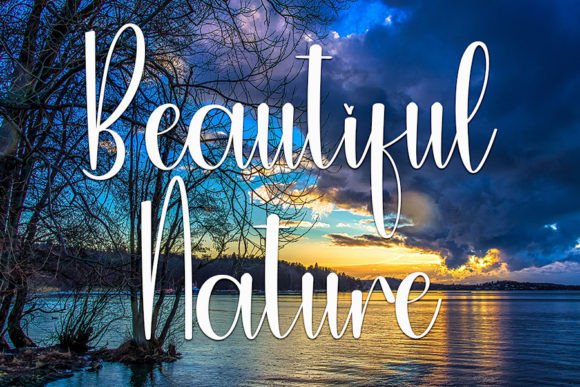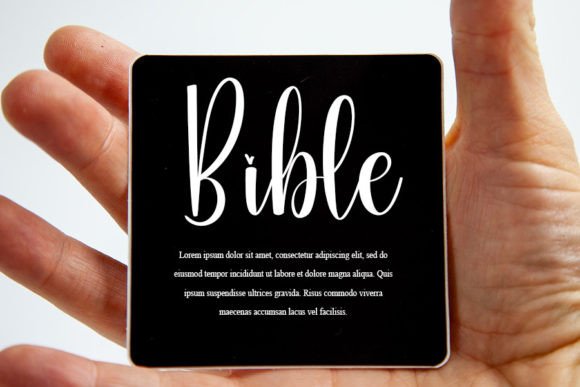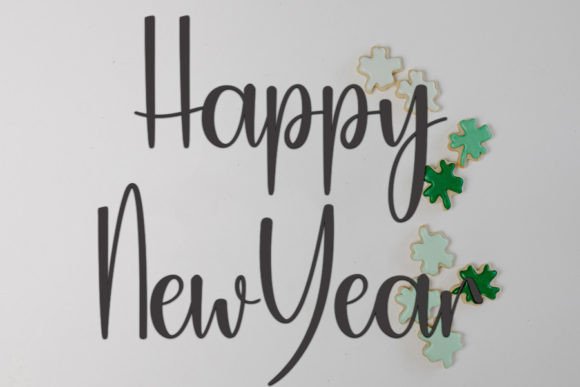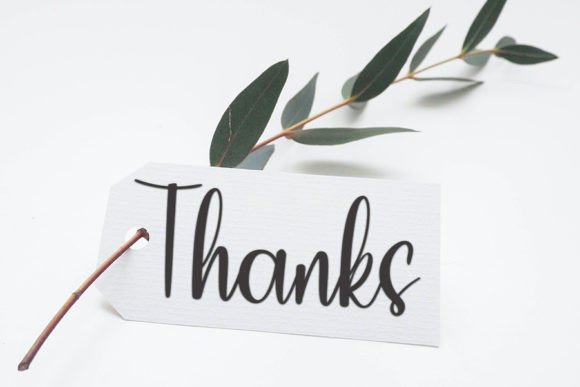
Rainbow Font
About Rainbow Font
The Rainbow Font Download is a neat and elegant handwritten script that combines timeless style with modern versatility. Its graceful strokes and carefully balanced letterforms create a handwritten look that is both professional and approachable. With its delicate curves, Rainbow adds sophistication to any design while maintaining excellent readability.
This font is perfect for designers who want to give their projects a polished, handcrafted touch. Whether you’re working on wedding invitations, thank-you cards, product packaging, or logos, Rainbow adapts beautifully, ensuring your designs stand out with personality and elegance. Its timeless charm makes it a reliable choice for both digital and print projects.
Features of Rainbow Font
When you choose the Rainbow Font Download, you’ll enjoy the following features:
• Elegant handwritten script style with graceful strokes
• Balanced and neat letterforms for readability in any size
• Timeless design that adapts to modern and classic layouts
• Versatility across digital, print, and craft applications
• Unique charm that makes your designs more personal and memorable
Best Uses for Rainbow Font
The Rainbow Font Download is versatile and can enhance a wide range of creative projects, including:
• Wedding invitations and stationery – Add romance and timeless elegance
• Greeting and thank-you cards – Create heartfelt designs with a personal touch
• Logos and branding – Perfect for fashion, lifestyle, boutique, and creative businesses
• Product packaging – Enhance labels for cosmetics, food, or artisan products
• Event posters and flyers – Bold, stylish typography for special occasions
• Social media graphics – Create elegant posts that capture attention instantly
• DIY projects and crafts – A personal handwritten look for creative designs
Why Choose Rainbow Font
The Rainbow Font Download is more than just another handwritten script—it’s a design tool that delivers both beauty and practicality. Its neat letterforms make it easy to read, while its flowing curves add elegance and sophistication. Unlike overly decorative fonts, Rainbow balances style and clarity, making it suitable for both professional branding and personal projects.
Designers appreciate Rainbow for its timeless appeal, ensuring it remains a valuable part of any design toolkit. Its versatility means it works equally well in formal contexts like invitations and casual settings like social media graphics.
The Rainbow Font Download is a neat, elegant handwritten script that brings timeless sophistication to your projects. With its smooth strokes, balanced letterforms, and versatile applications, Rainbow is perfect for invitations, logos, packaging, social media content, and more.